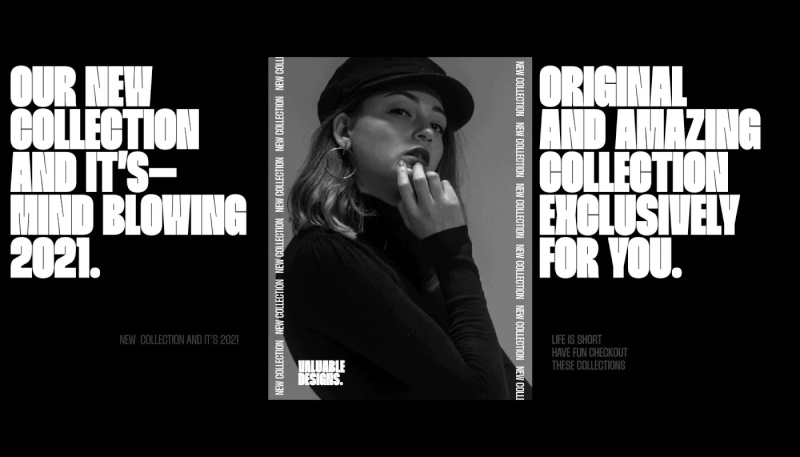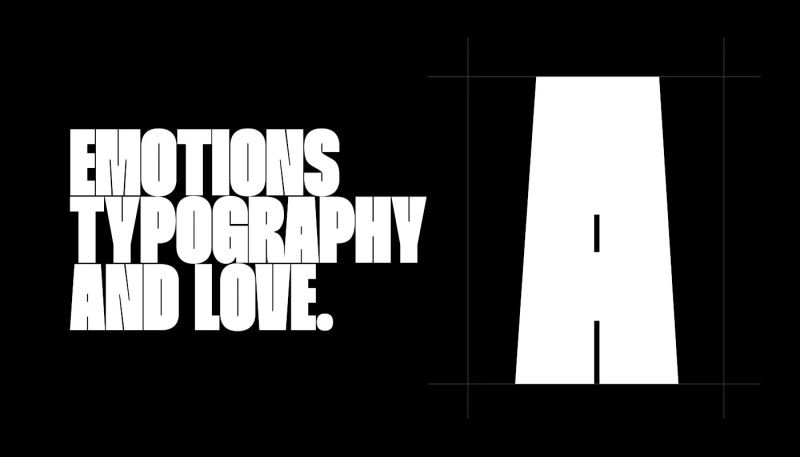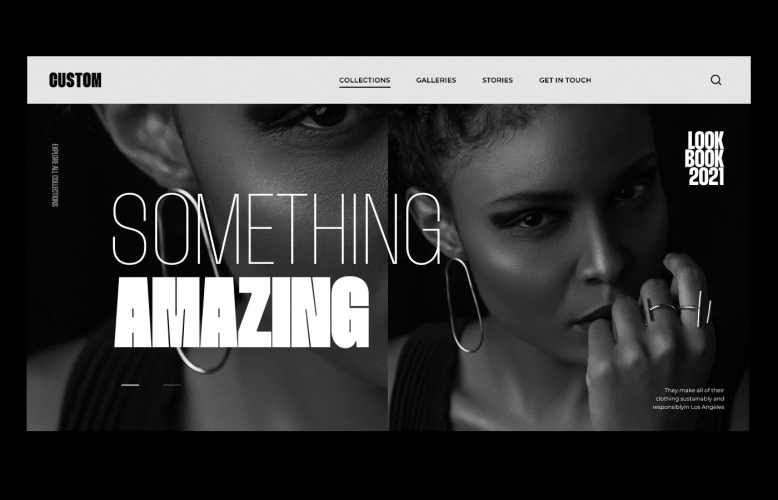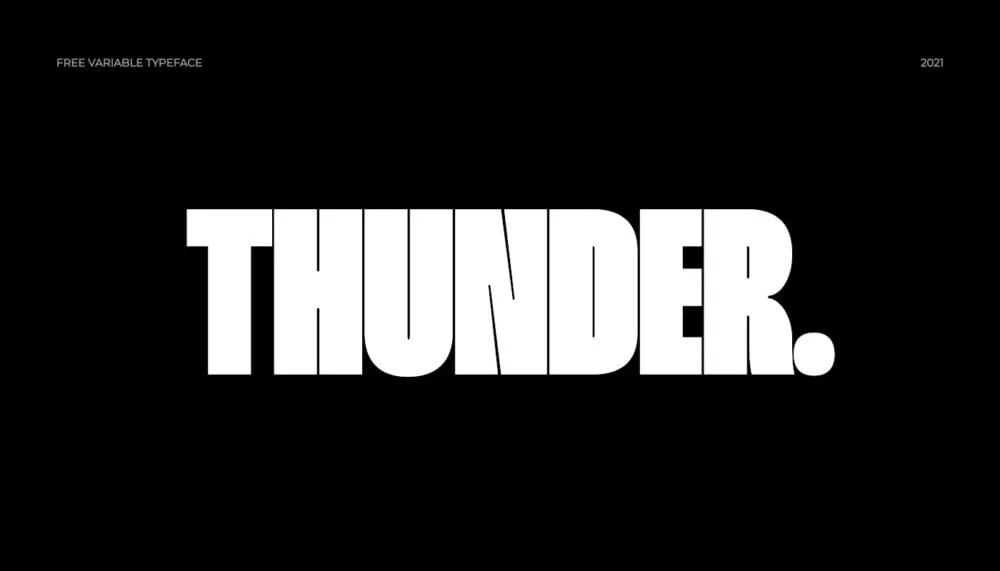
Thunder Font
Thunder Font is absolutely amazing!!! Finally, a thick font that has some swagger to it. Favorite fat font, hands down!! Avatar profile image. Thunder is a bold and strong condensed sans serif font family beautifully crafted to perform in short headlines in posters or contemporary.
Thunder Sans Serif Font Has 18 weights including an italic version, strong character, Sharp edges, and proportional contrast. The typeface is versatile and can be successfully used in Branding, Posters, Magazines, Websites, Mobile Apps, etc.
Where Thunder Font works best
Thunder Font stays legible at small sizes, which makes it a strong choice for navigation, buttons and dashboards in web design and app interfaces.
Clean sans serifs like Thunder Font are the default language of SaaS, fintech and product branding.
What is Thunder Font good for?
Thunder Font is a Sans Serif Fonts typeface tagged Bold, Branding, Condensed, Headlines. It works well for headlines, logos, posters, social media graphics and branding projects that need a distinctive sans serif fonts look.